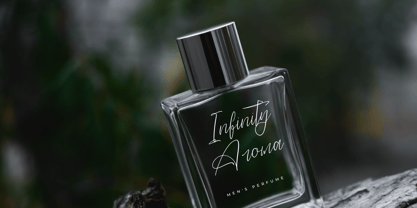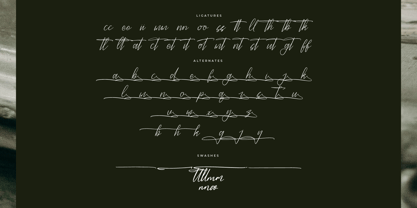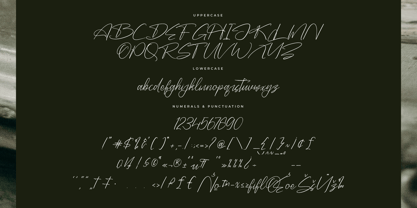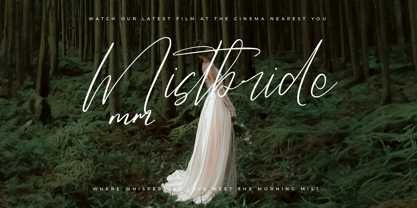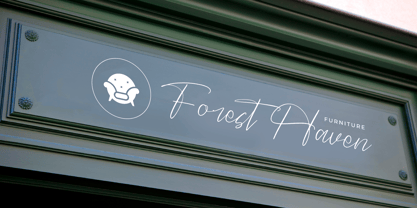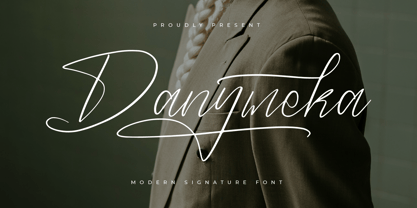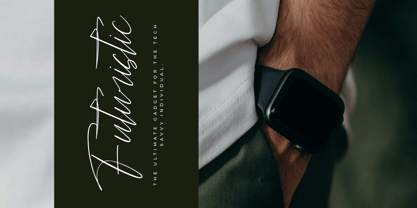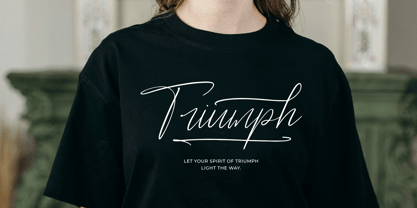
Danymeka
The Danymeka Font Family was designed by Heru Utama Putra and published by Letterena Studios. Danymeka contains 2 styles and family package options.
Danymeka is a dazzling script font that epitomizes elegance and charm. Its graceful flourishes and intricate details captivate the eye, making it perfect for wedding invitations, branding, and signage. With its timeless appeal and delicate curves, Danymeka adds a touch of sophistication to any design project.